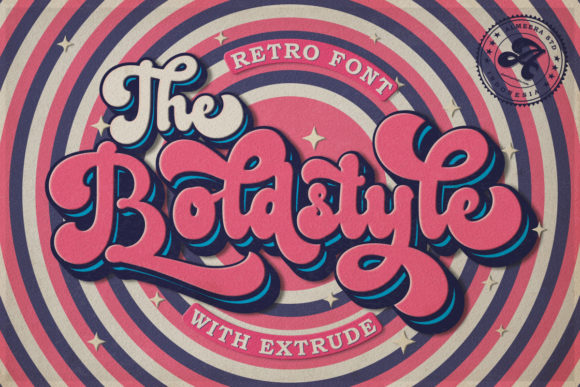
Introducing The Boldstyle Font, the best font family for Cricut label and all your other design needs! Created by the talented Almeera Studio, this incredibly unique handwritten font is defined by its retro style, making it stand out from the crowd.
The Boldstyle Font will instantly captivate you with its beautiful, flowing lines and elegant curves. Whether you're creating a new logo, designing an eye-catching website, or working on a fun DIY project, this font will take your work to the highest levels.
But what makes The Boldstyle Font truly special is its versatility. It's perfect for any project, from vintage to modern, and can be used for everything from invitations to packaging. And with its keyword-rich design, it's the perfect choice for anyone looking to elevate their branding.